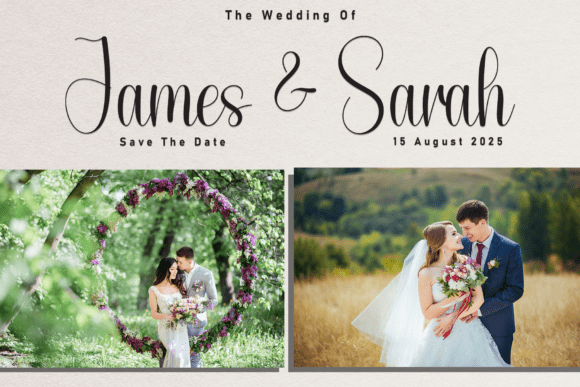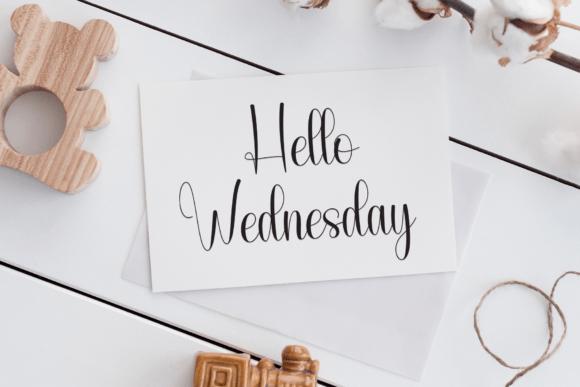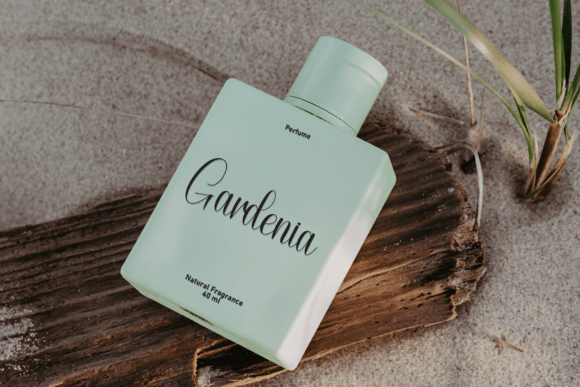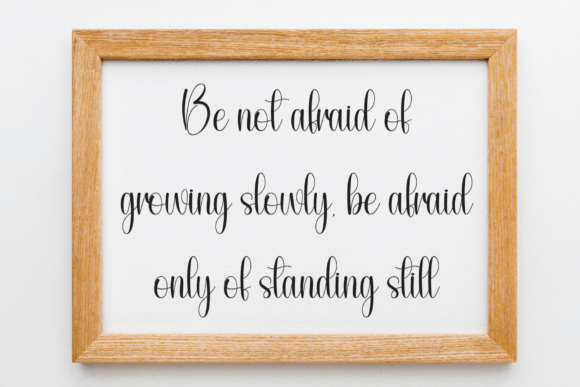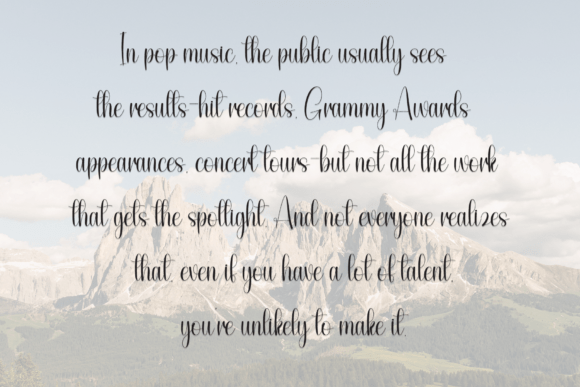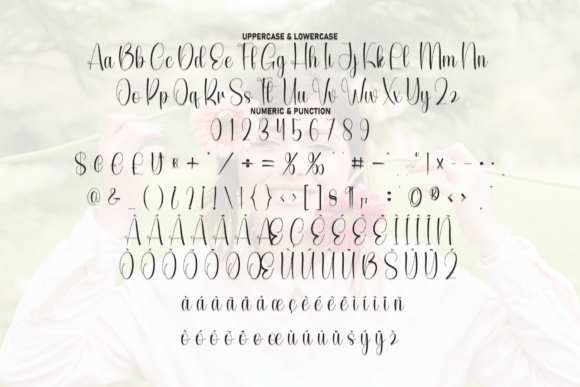
Introduction to Happy Blooming Font
Have you ever stumbled upon a design that makes your heart skip a beat? For me, that moment came when I saw a beautifully crafted logo with the Happy Blooming Font. The elegant script and fluid curves instantly caught my attention, and I couldn’t help but wonder what made this font so special.
As a designer, I’ve always been on the lookout for high-quality fonts that can elevate my creative projects. Happy Blooming Font is more than just a stylish script – it’s a design resource that offers a unique blend of elegance and modern charm. With its natural flow and polished details, it’s perfect for logos, invitations, packaging, and social media graphics that require a refined and sophisticated touch.
Key Features of Happy Blooming Font
- High-quality, vector-based design for a crisp and clear appearance in any size.
- Includes a wide range of characters, including uppercase and lowercase letters, numbers, and special characters.
- Unique and playful design makes it perfect for creating eye-catching and engaging designs for various creative projects.
Honest Review: Happy Blooming Font
I recently stumbled upon the Happy Blooming Font, and I must say, it’s a fantastic addition to my design resources. As a designer, I’m always on the lookout for high-quality fonts that can elevate a creative project. This font definitely fits the bill.
- ✨ The font’s playful and whimsical design makes it perfect for projects that require a touch of fun and personality.
- ⚠️ The font may not be suitable for projects that require a more formal or professional tone, as it’s more geared towards creative and playful designs.
- ⚠️ The font’s size and weight may not be as customizable as I would like, which can limit its use in certain design scenarios.
Overall, I’m really impressed with the Happy Blooming Font. Its unique design and flexibility make it a valuable addition to my design resources. If you’re looking for a fun and creative font to spice up your projects, I’d definitely recommend giving it a try.
Happy Blooming Font
Tips for Getting the Most Out of the Happy Blooming Font
- Use the font with a transparent background to create a clean and minimalist design.
- Pair the Happy Blooming Font with a high-quality image or illustration to add visual interest to your design.
- Experiment with different font sizes and styles to create a unique and eye-catching design.